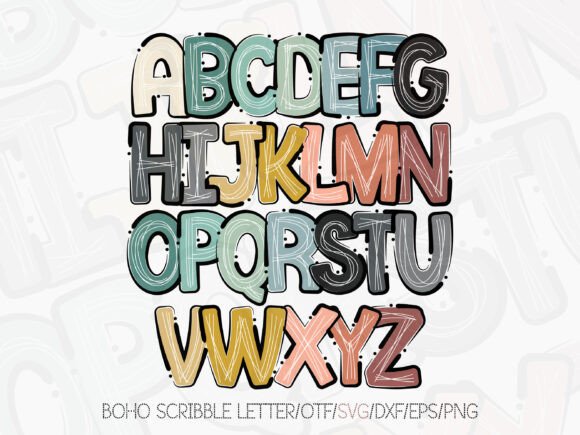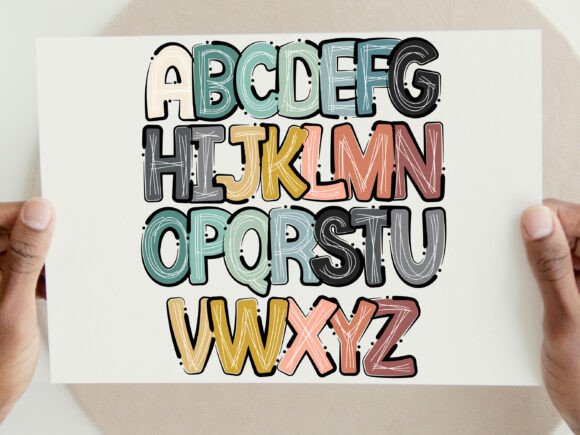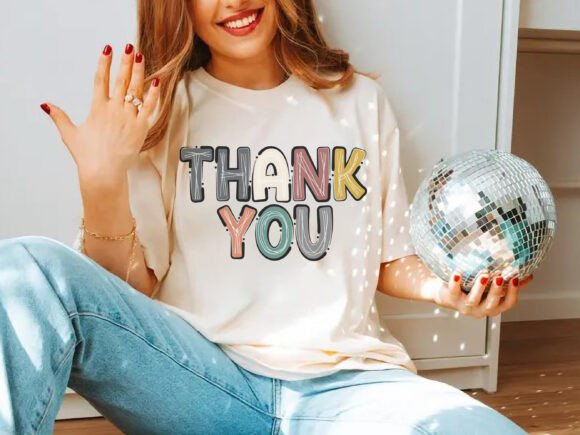
Boho Scribble Letter Font
About the Boho Scribble Letter Font
Introducing the Boho Scribble Letter Font, a beautifully crafted typeface designed to elevate your creative projects. Boho Scribble Letters refer to a playful and artistic style of typography. This style often features hand-drawn or doodled letters that convey a sense of creativity, whimsy, and personal expression. Perfect for weddings, graphics, posts, and stories to add a touch of personality and creativity.
This font shines in applications requiring a handcrafted, informal feel. Ideal uses include short headlines, social media graphics, wedding invitations, and packaging for artisan products. Its playful nature makes it perfect for branding projects targeting a young, creative demographic. Avoid using it for large blocks of text or UI elements where readability is paramount; the inconsistent stroke weights hinder legibility in extended copy.
Boho Scribble Letters pair well with clean sans-serif fonts like Montserrat or Open Sans for contrast and balance, providing a modern counterpoint to the font’s hand-drawn aesthetic. For a more cohesive, bohemian feel, consider pairing it with a delicate script font such as Great Vibes or a slightly more structured serif like Lora.
The overall personality is whimsical and expressive, conveying a sense of warmth and approachability. It’s best suited for brands emphasizing individuality and handcrafted quality.